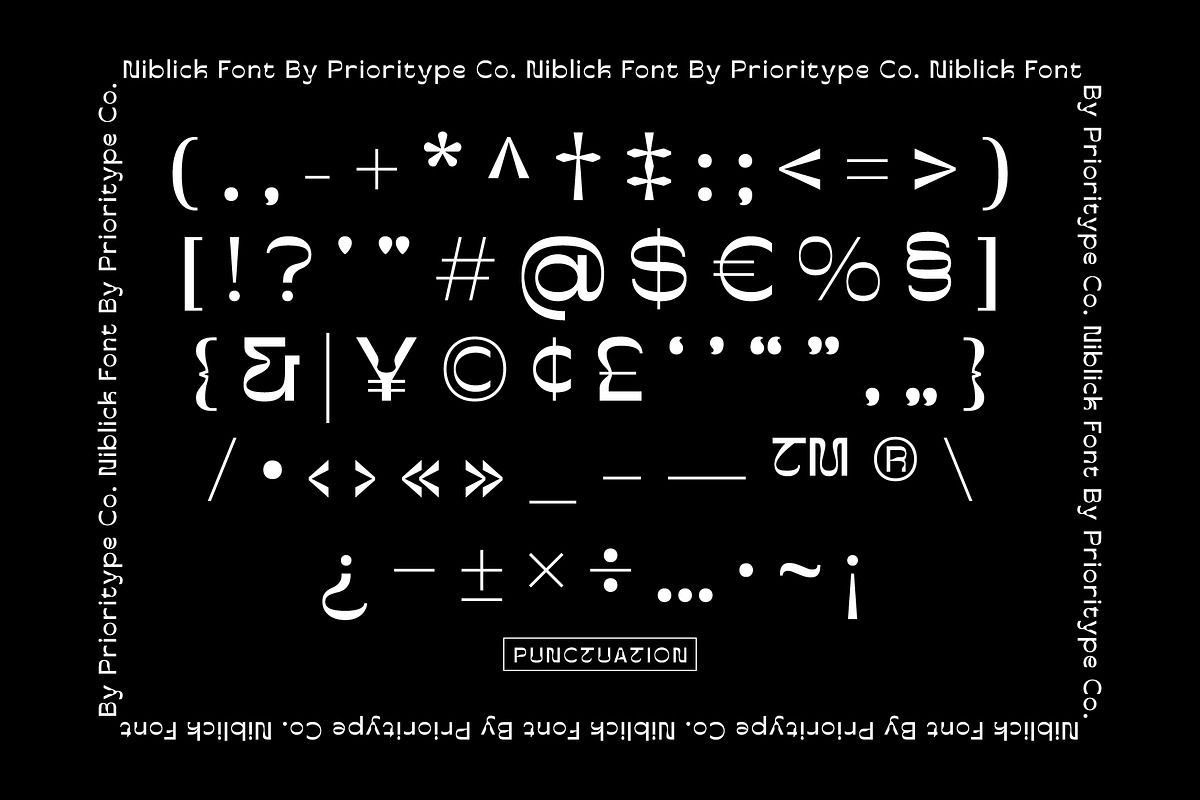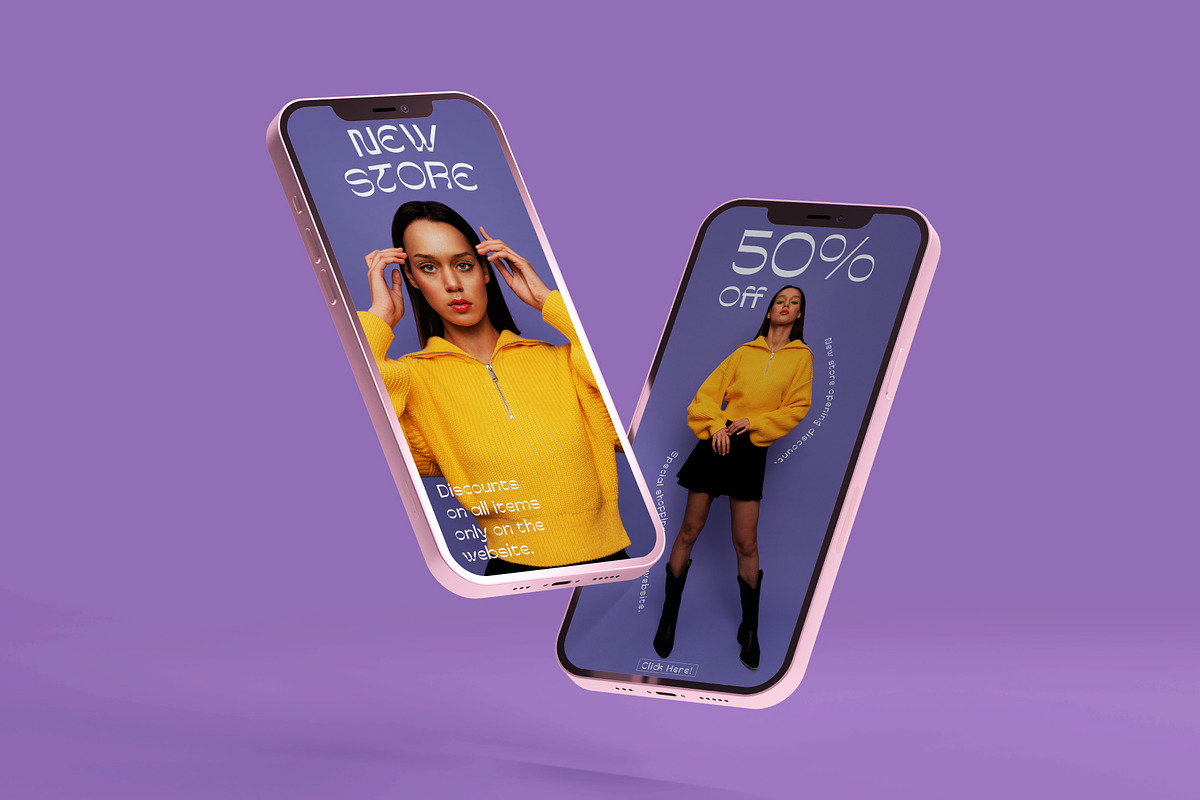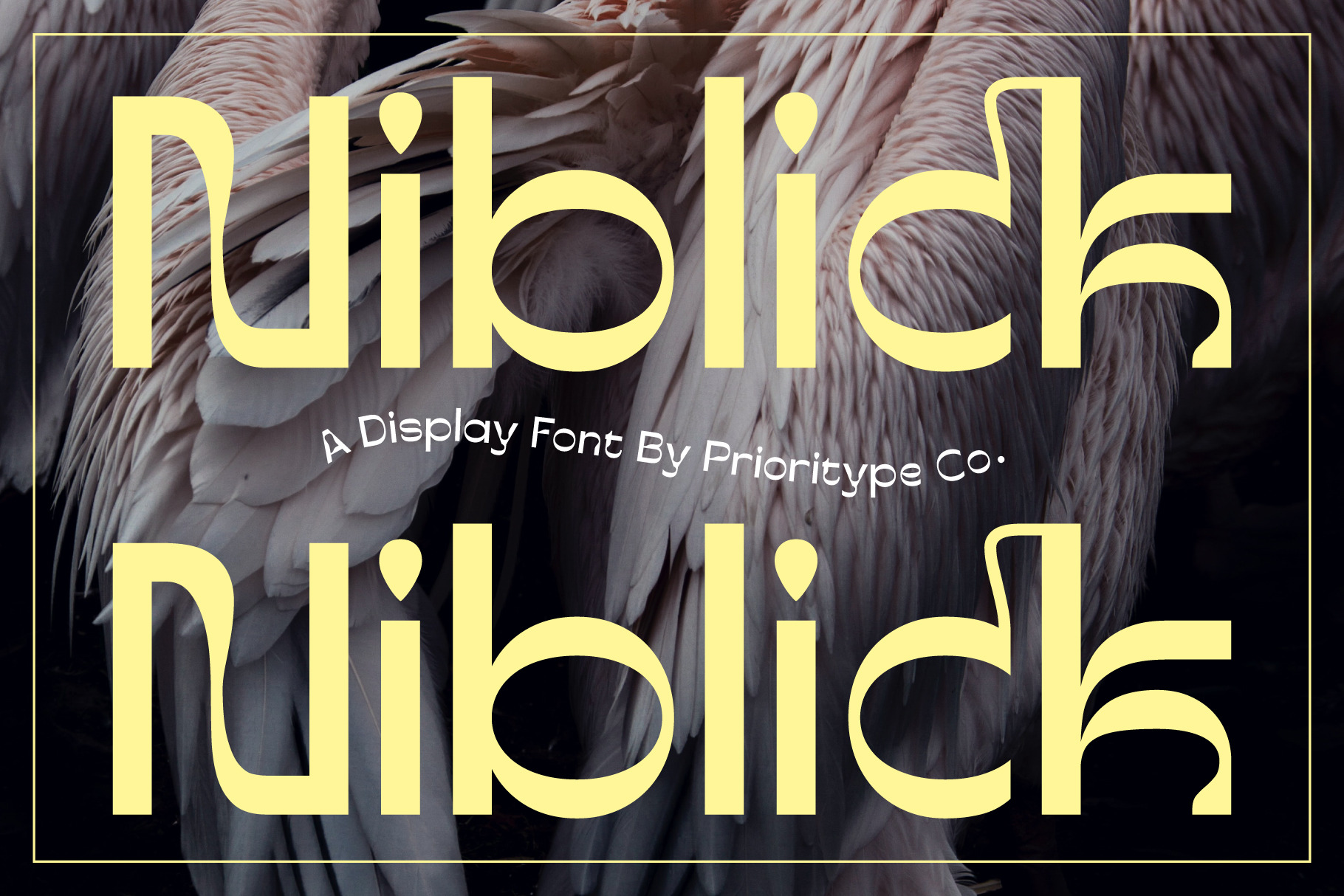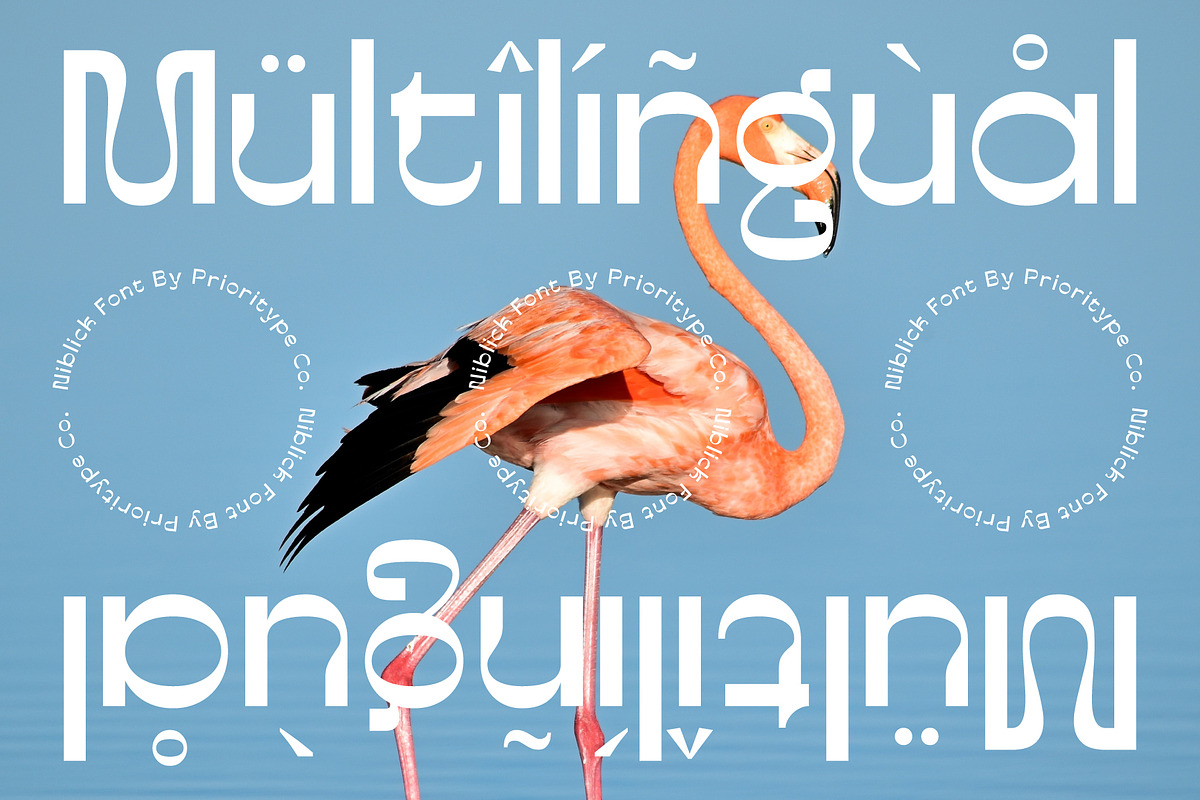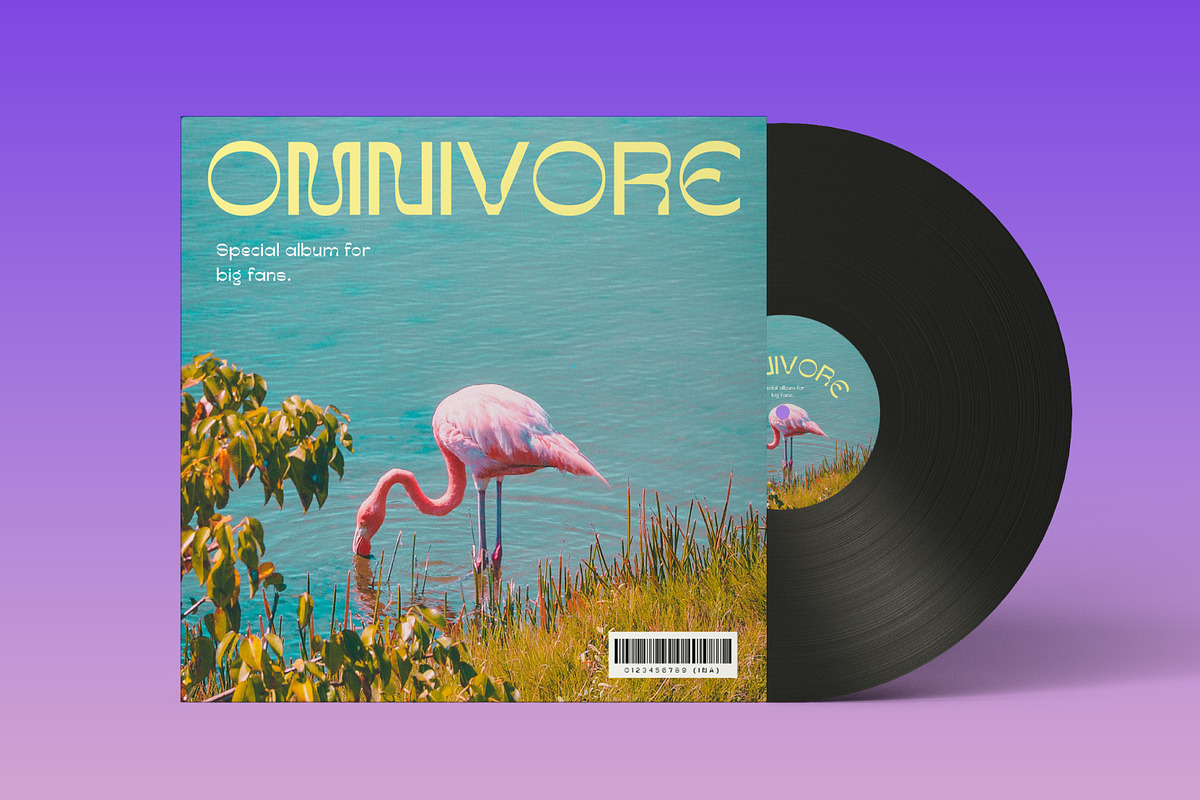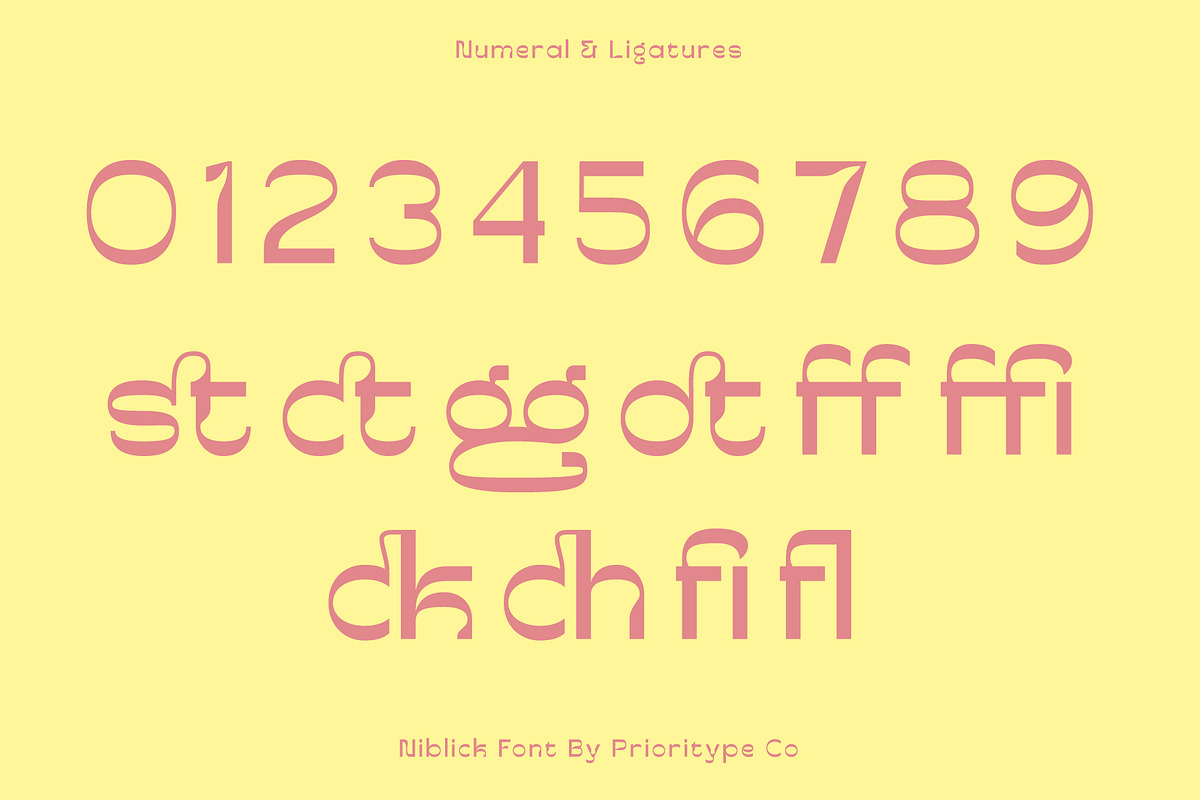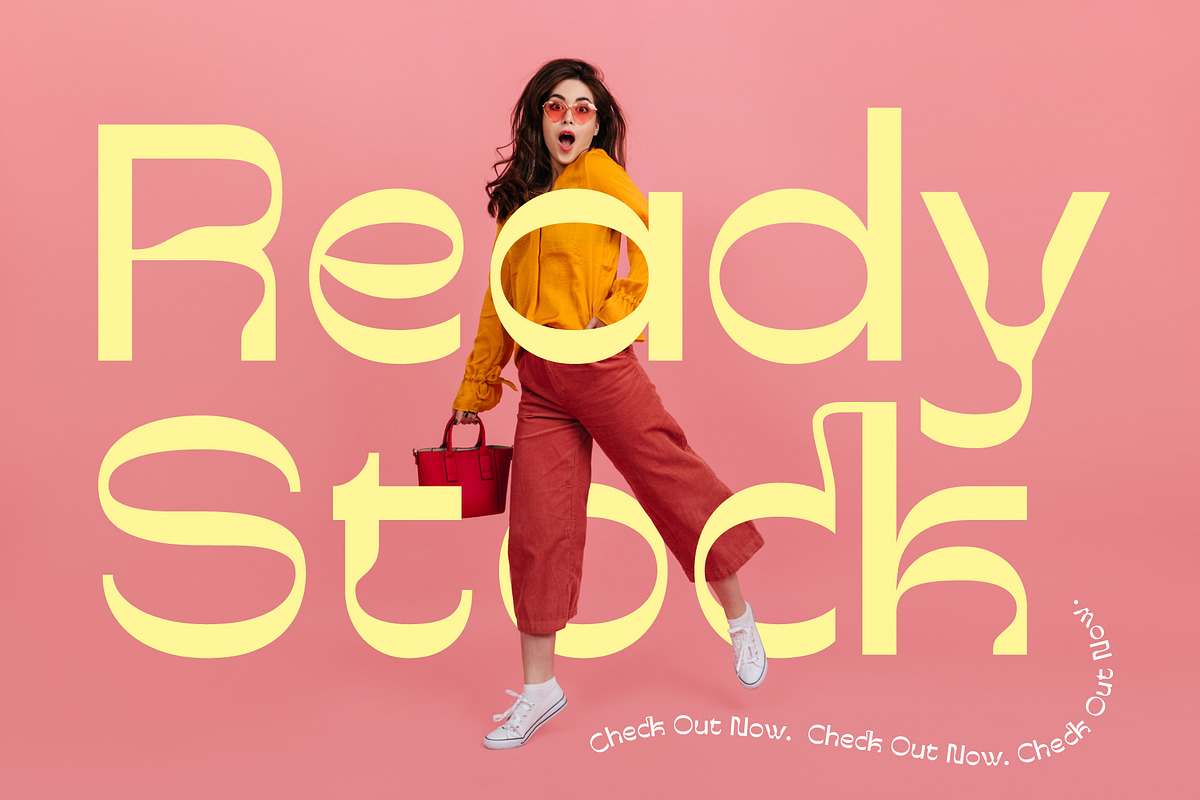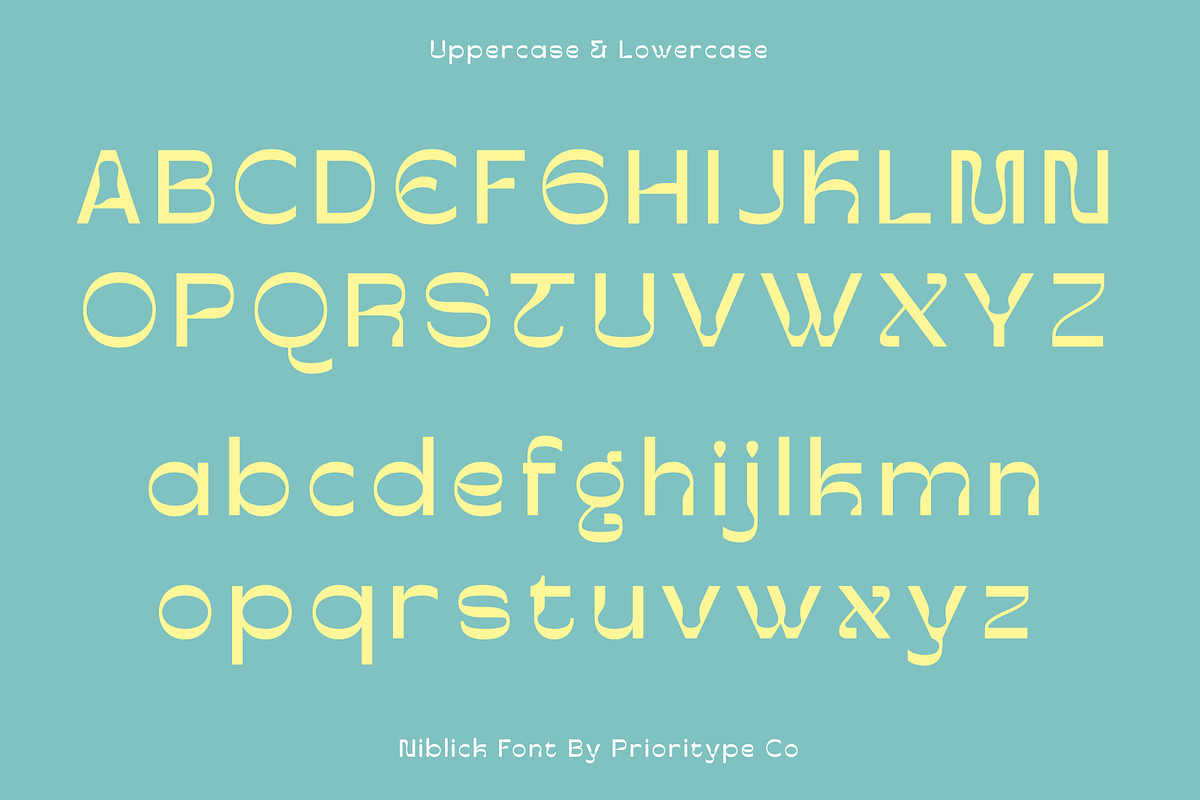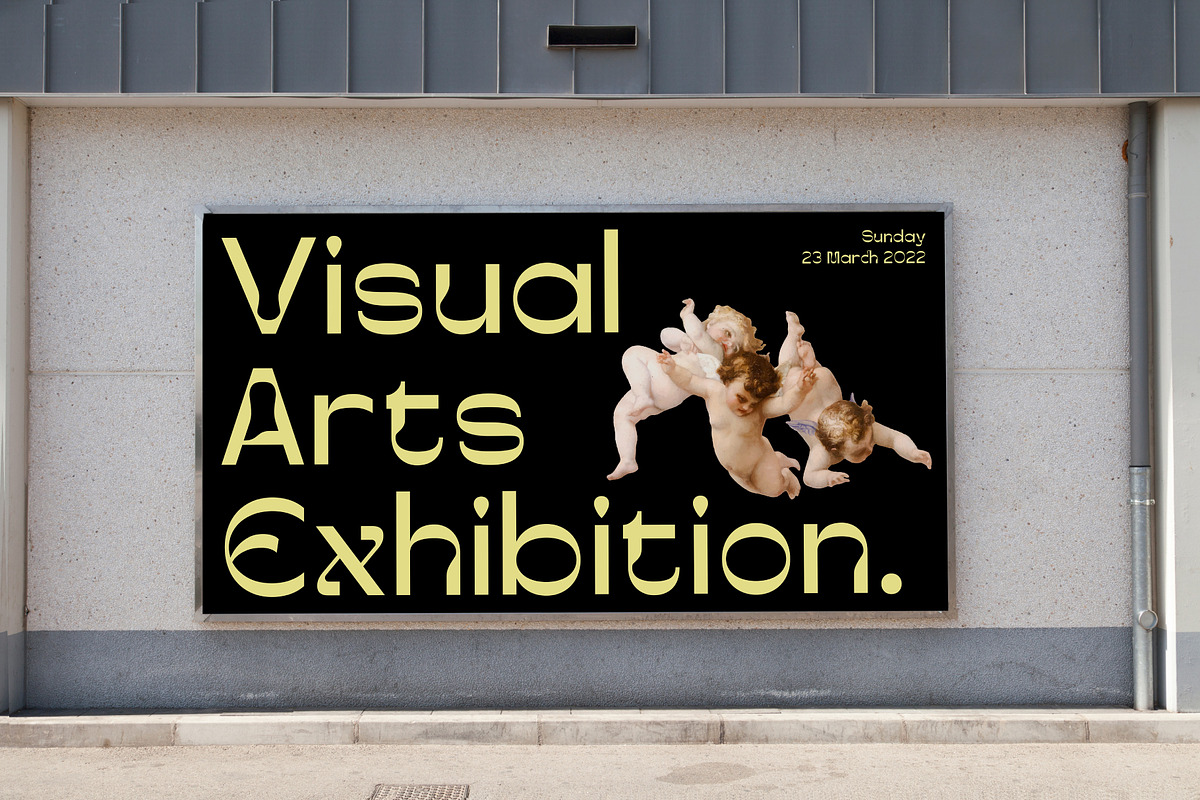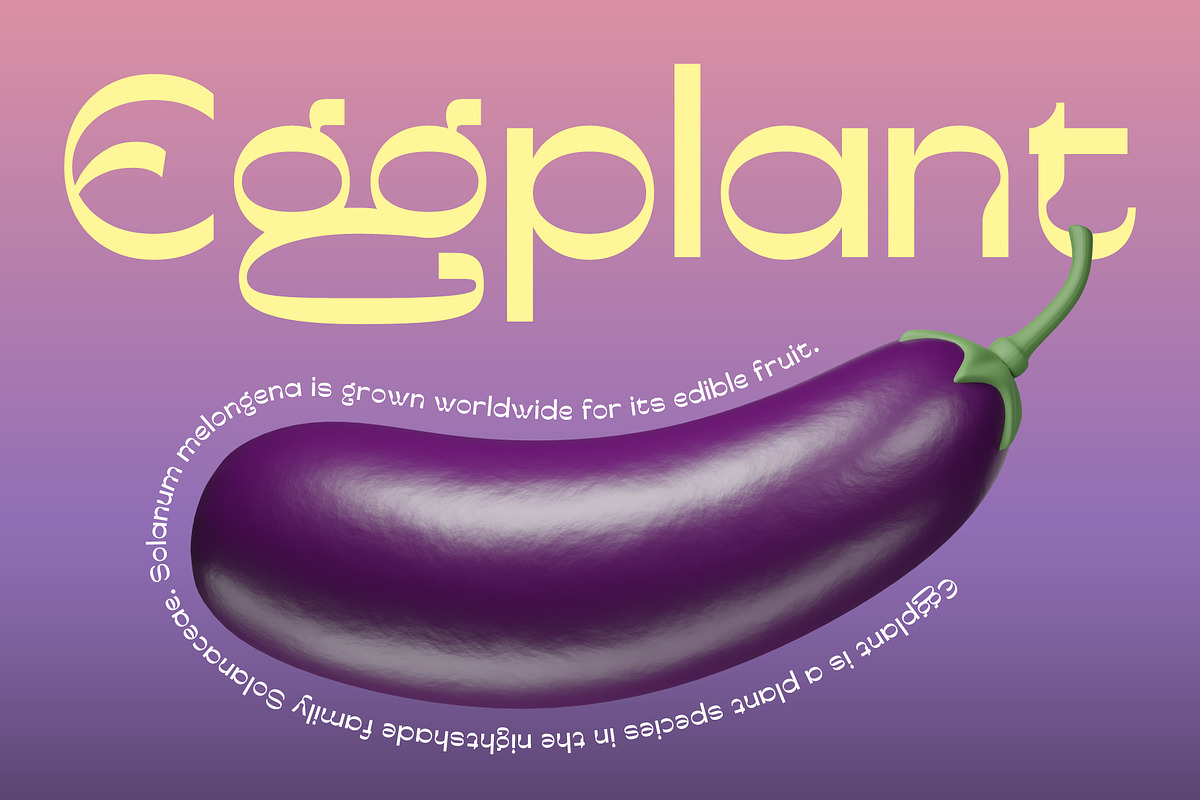
Niblick - Display Font
"Niblick" is a modern and classic styled display typeface. The unique touches on each character add to the visual impression that is more impressive.
Useful if your project requires strong, memorable visuals. Great for branding designs, posters and logos.
- Features: Uppercase, Lowercase, Numeral, Punctuation, Multilingual, Ligatures & PUA Encoded.